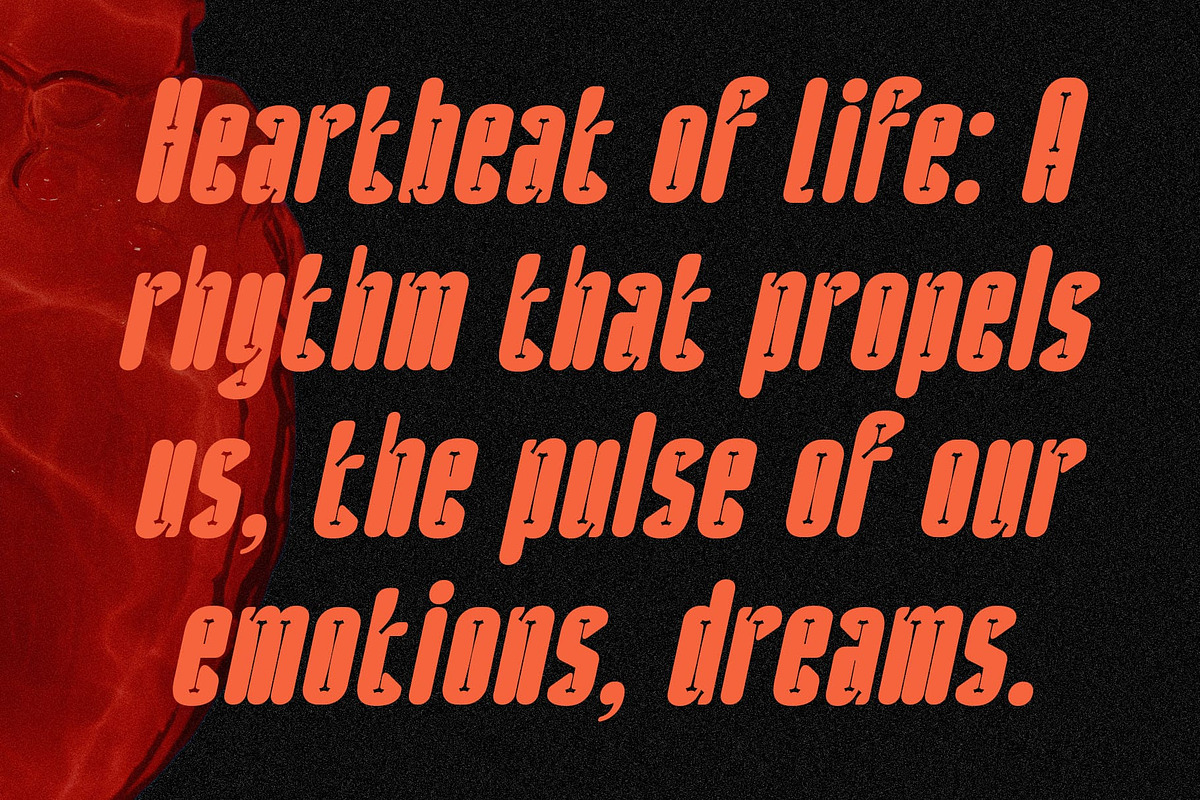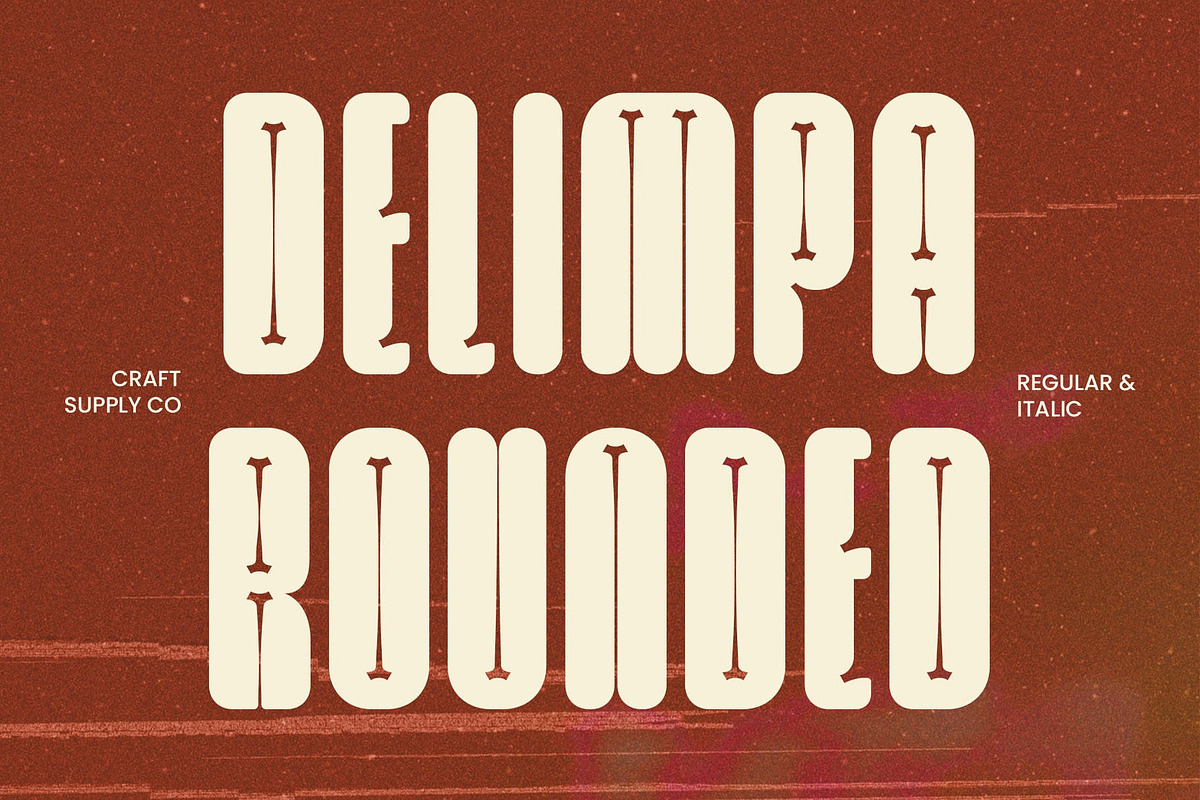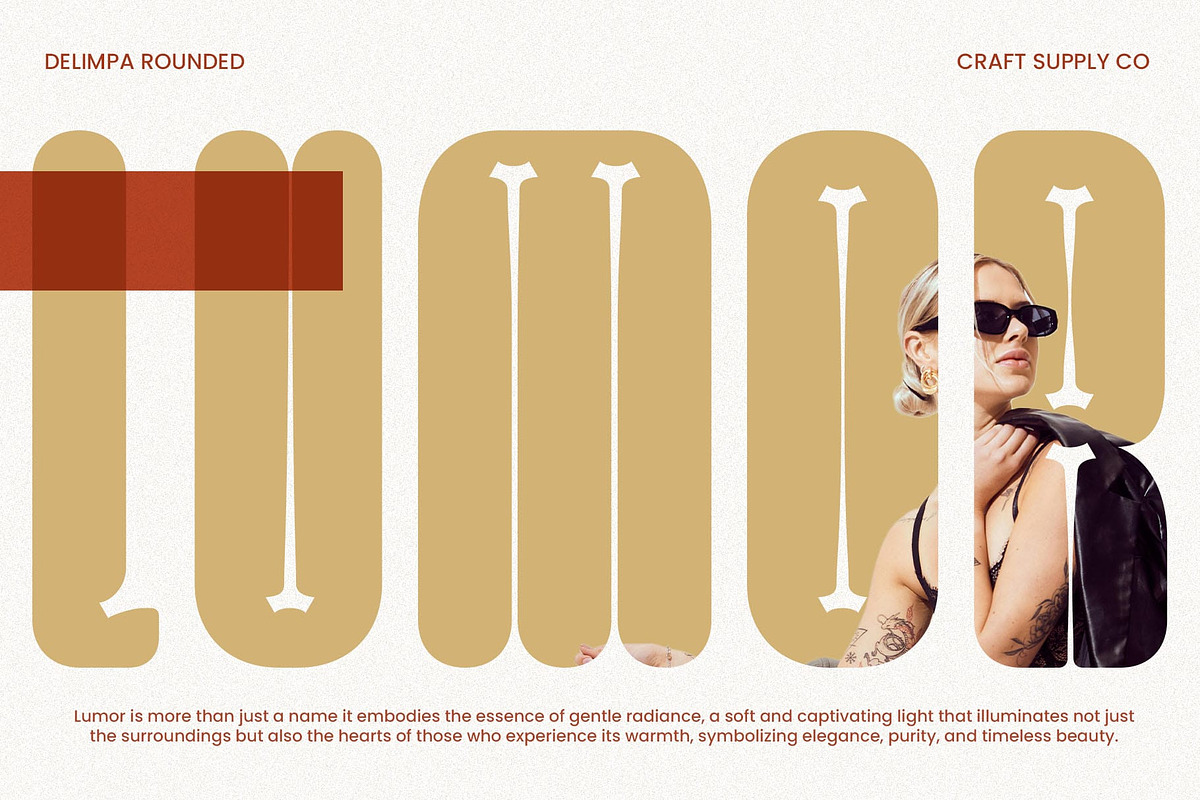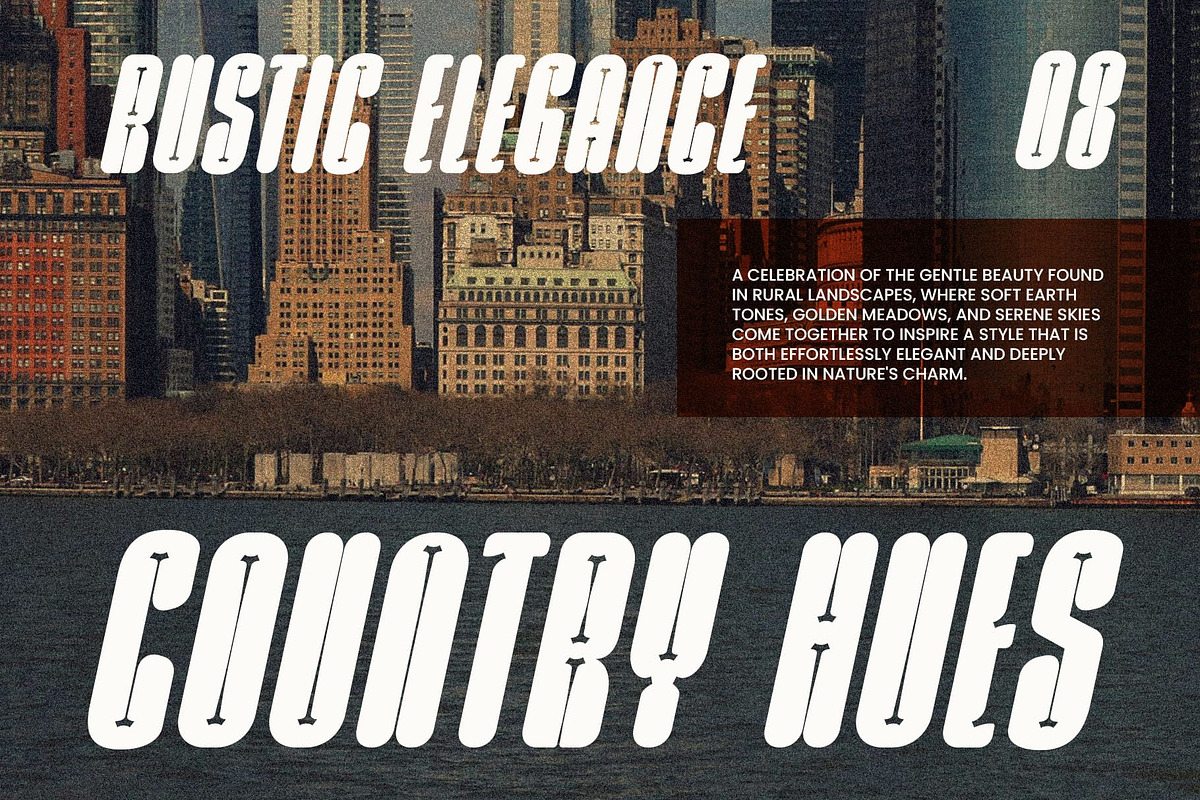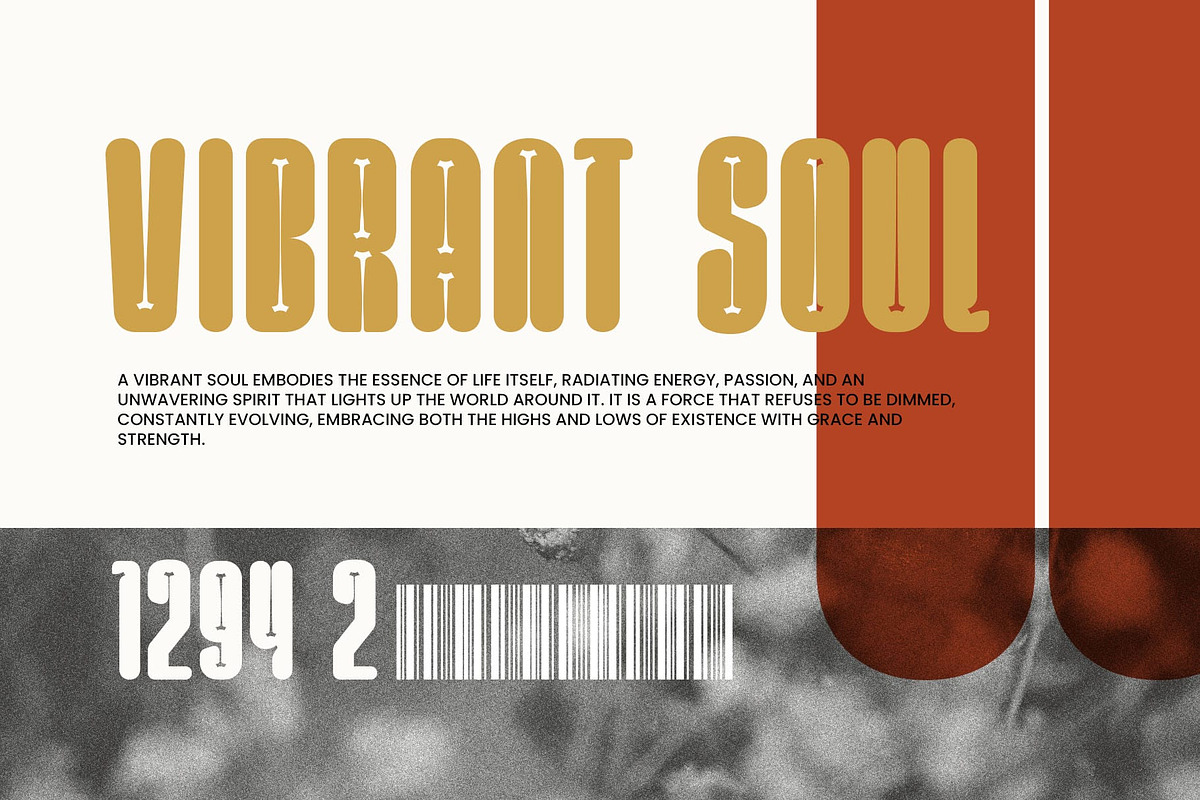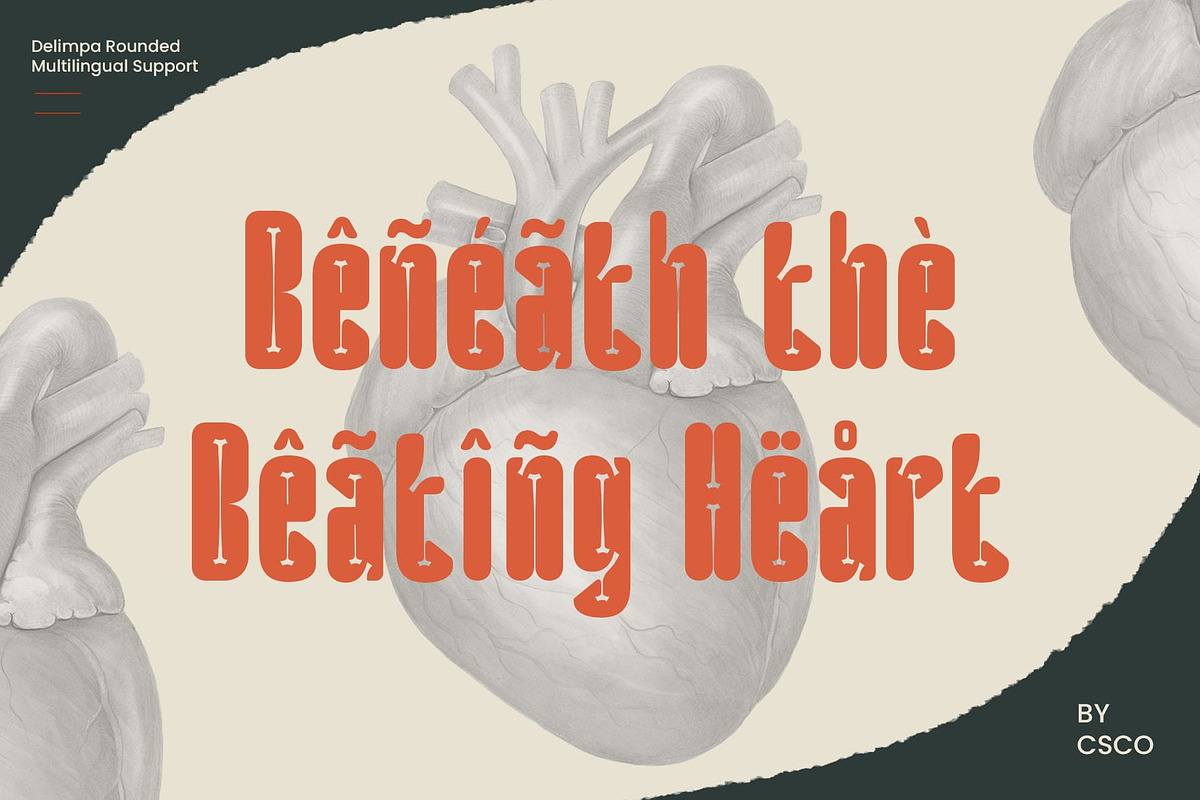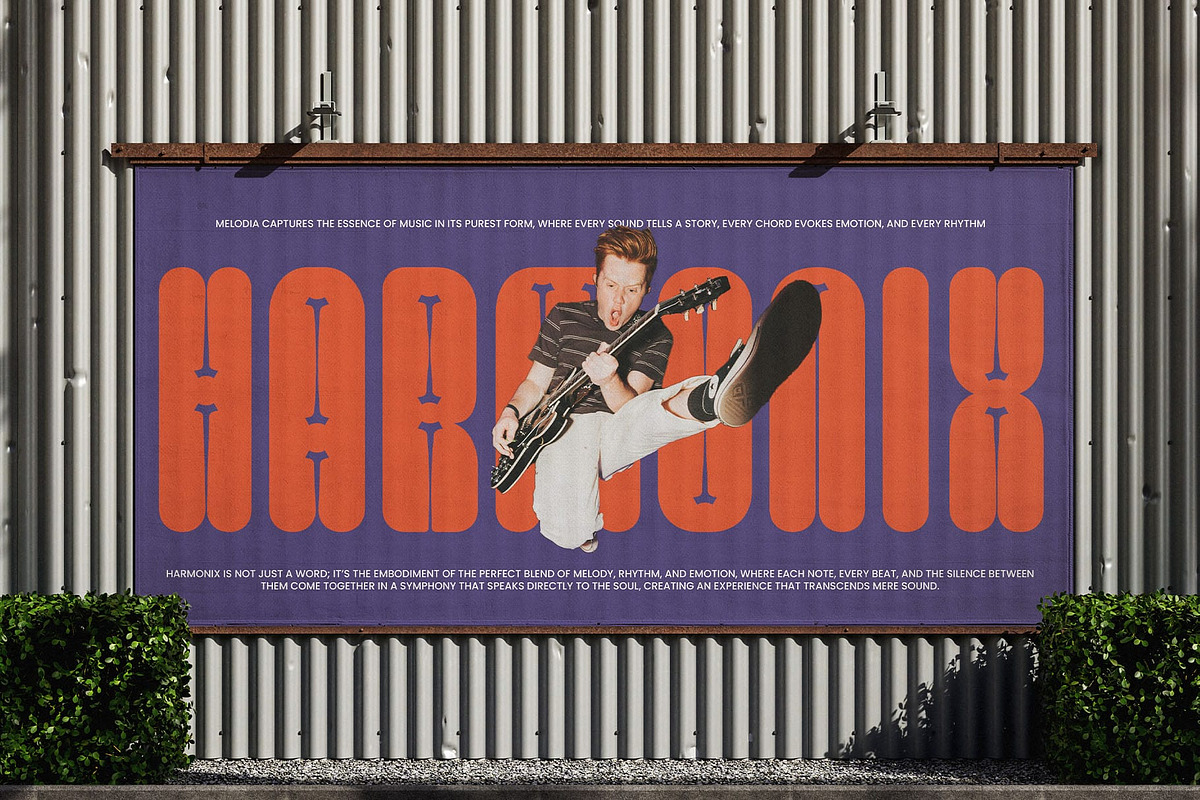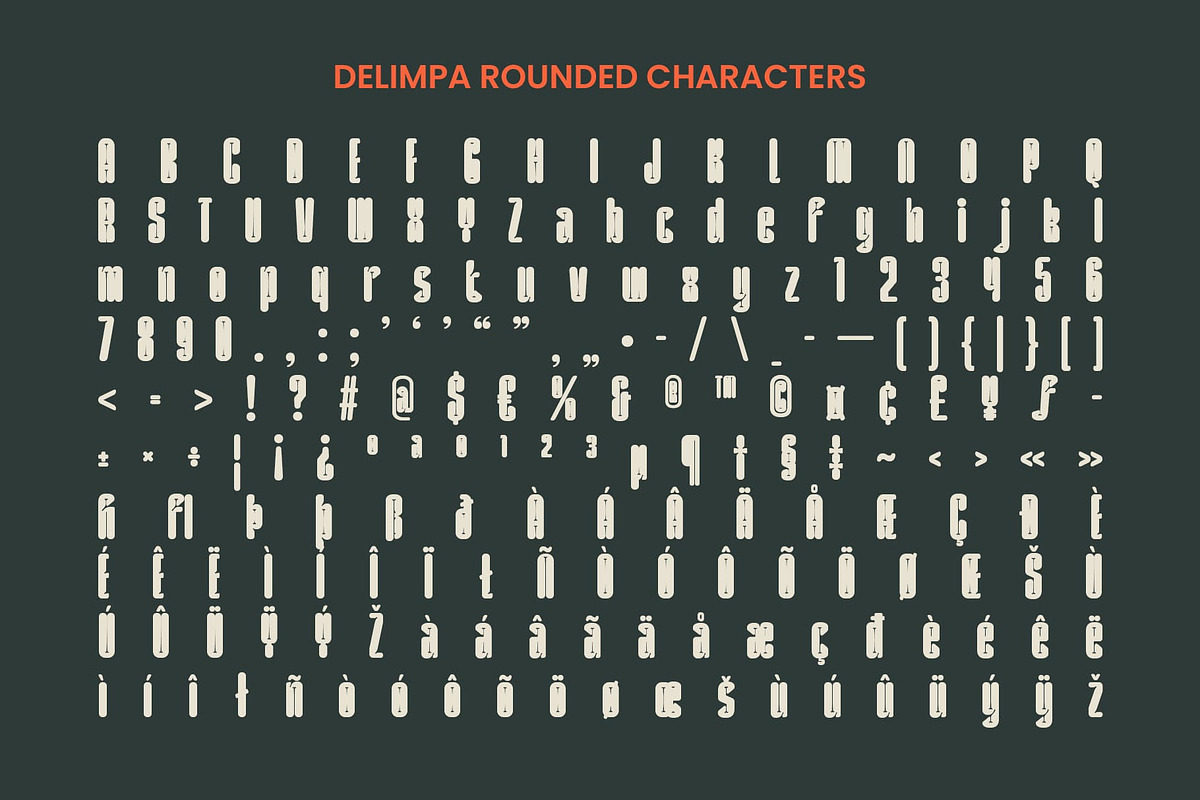
Delimpa Rounded
Delimpa Rounded Font: Bold, Dynamic, and Space-Efficient
Modern Sans Serif with Inktrap Design Delimpa Rounded is a modern sans serif font that combines boldness, space efficiency, and readability through its unique design. The inclusion of inktrap details—open spaces at the corners of the letters—enhances its legibility in both smaller sizes and dense print conditions, making it ideal for high-impact designs where clarity is key. This functional feature ensures that the font maintains its sharp, clear appearance even in challenging environments, such as posters, websites, or mobile applications.
Bold and Condensed for Maximum Impact With its bold weight and condensed form, Delimpa Rounded exudes strength and authority. The bold lines create a solid, assertive presence, while the condensed structure maximizes space efficiency. This combination allows for more content in limited areas, making the font perfect for applications that require text to stand out without overwhelming the design. Whether used in headlines, logos, or marketing materials, its powerful presence commands attention while maintaining a sleek, compact look.
Rounded Edges for Approachability and Warmth While the font’s boldness and condensed form evoke strength and professionalism, the rounded edges soften its overall appearance, adding a welcoming and friendly touch. This balance of sharp precision and soft curves makes Delimpa Rounded versatile enough for a range of design applications that require both impact and warmth.